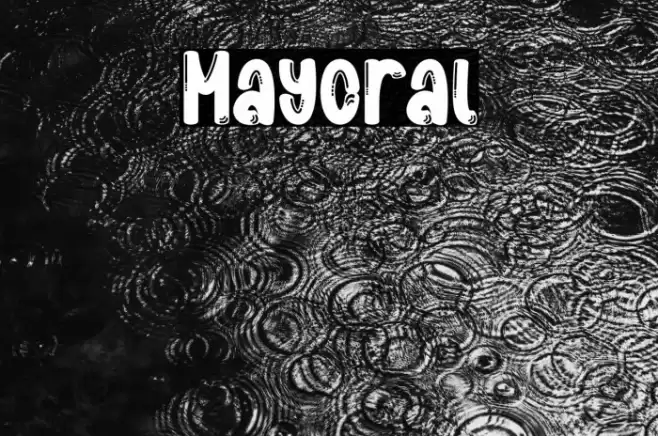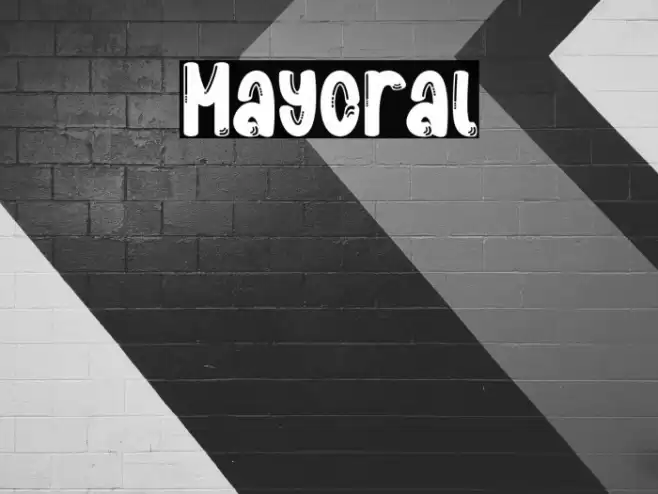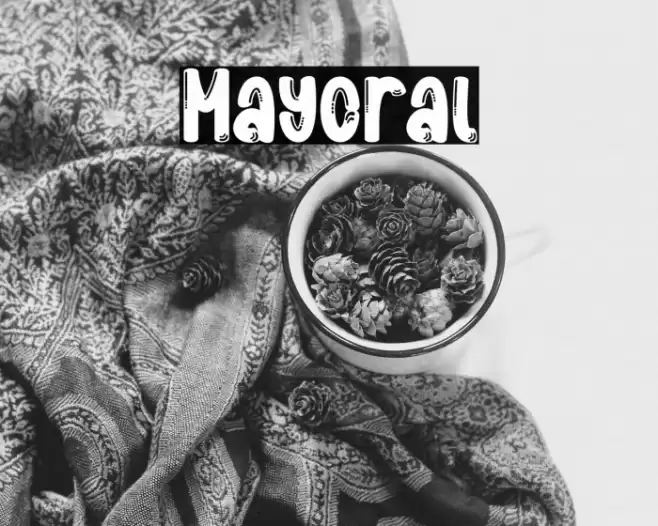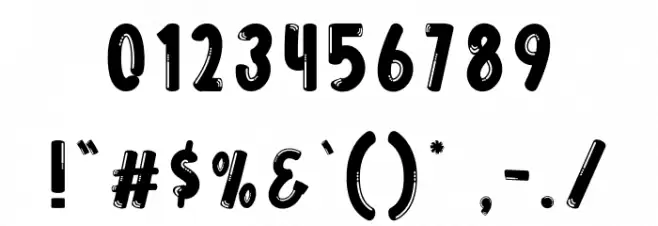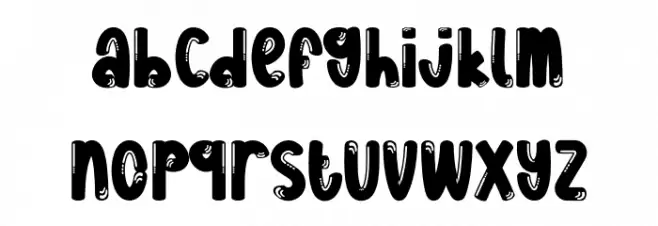
Mayoral Font
Mayoral Description
This font features a playful and decorative style with bold, rounded characters. Each letter is adorned with intricate swirls and patterns, giving it a whimsical and artistic appearance. The uppercase and lowercase letters maintain a consistent design, with the lowercase being slightly more compact. Numbers and special characters follow the same decorative theme, ensuring uniformity across all glyphs. The font's unique design makes it stand out, making it ideal for creative and eye-catching projects.
A bold, decorative font with playful swirls and patterns from Uncategorized fonts.
- Proposed Projects: Ideal for children's books, playful branding, party invitations, and creative posters.